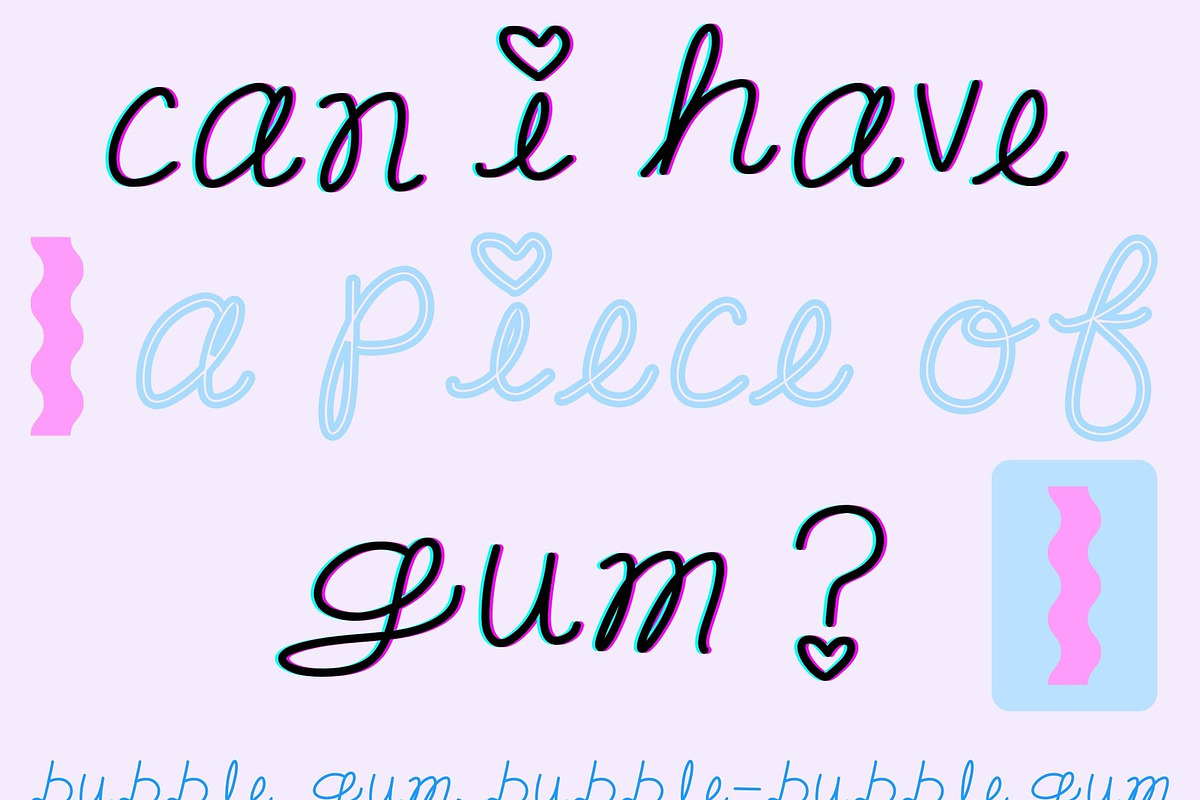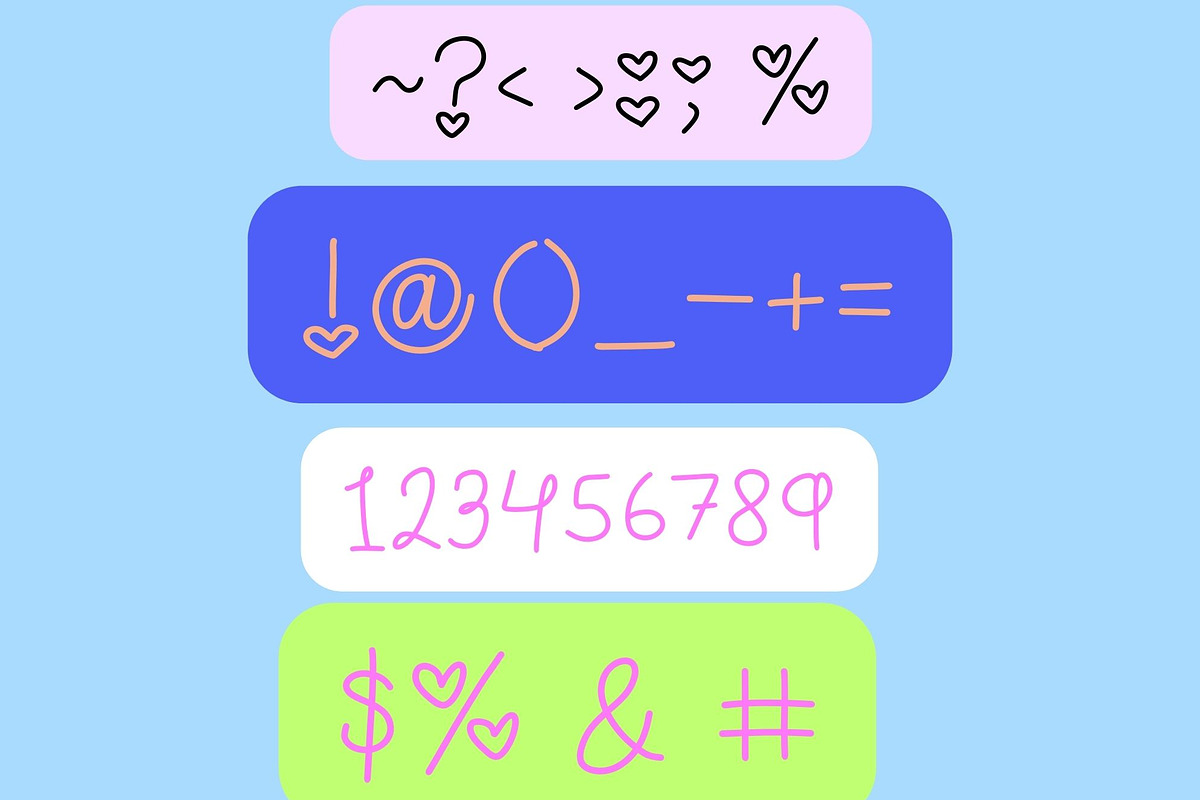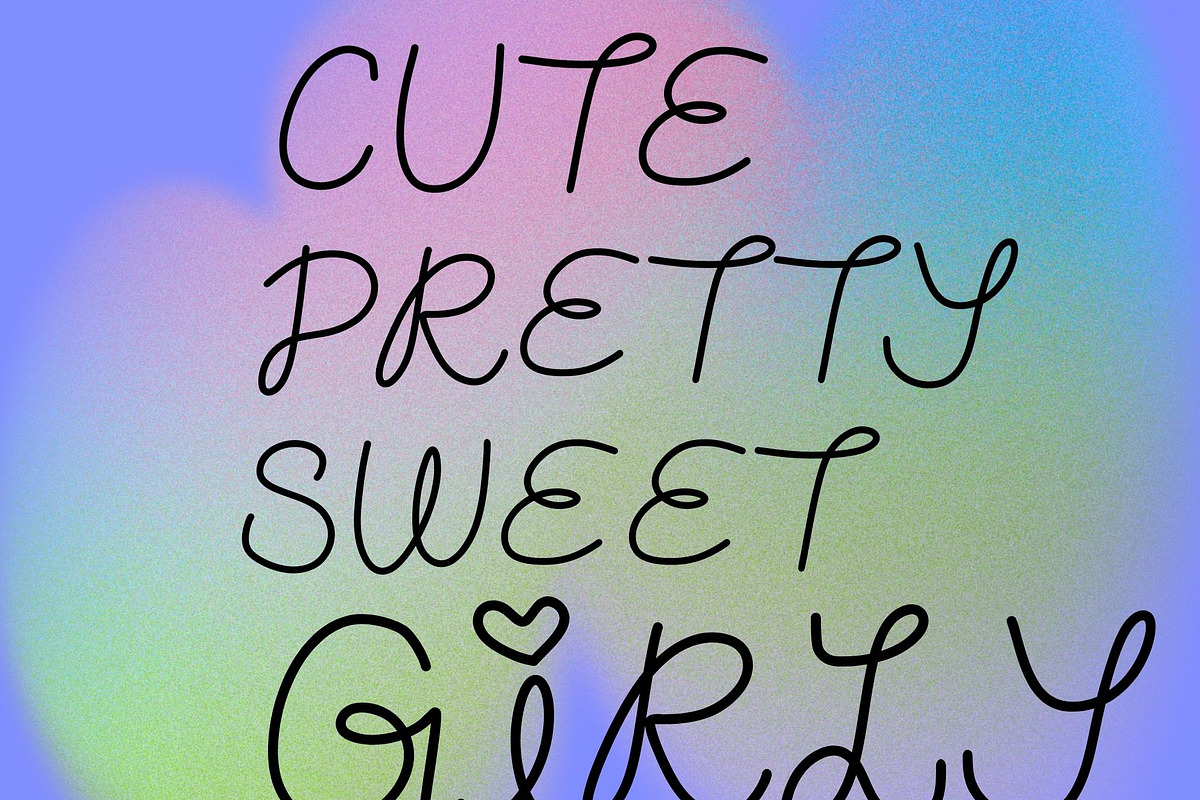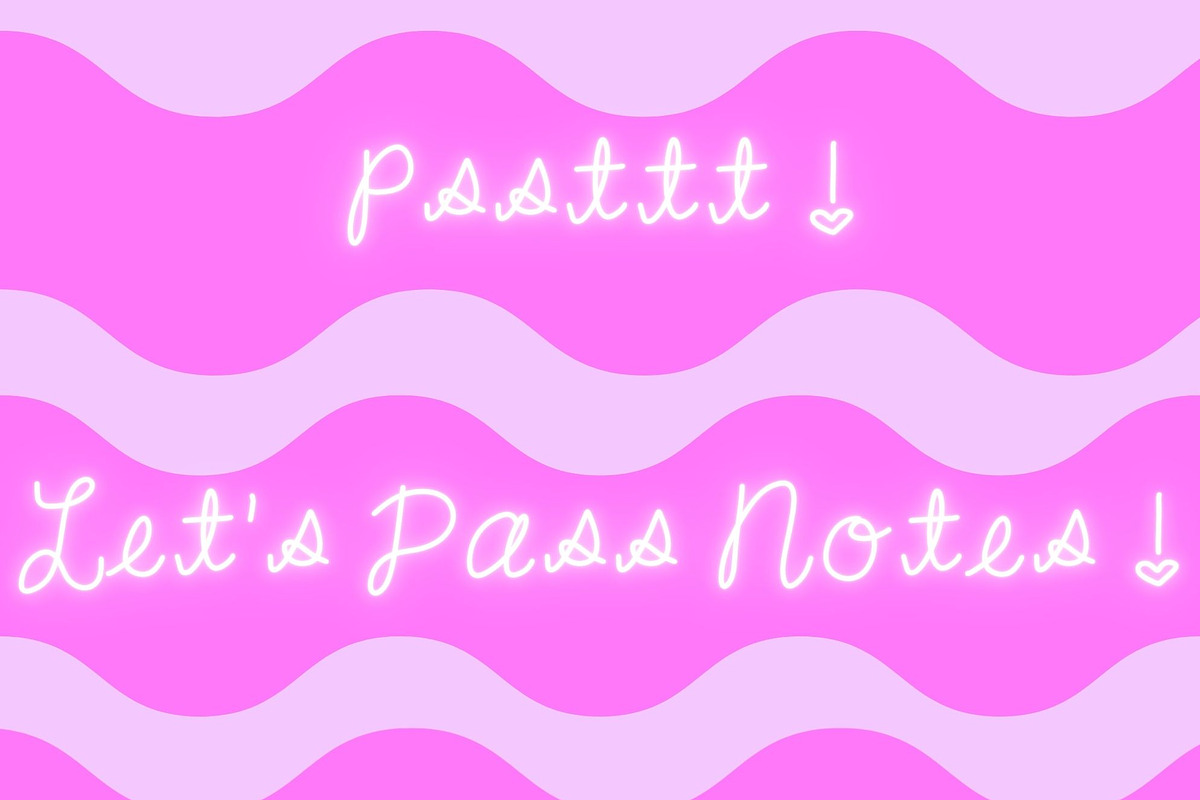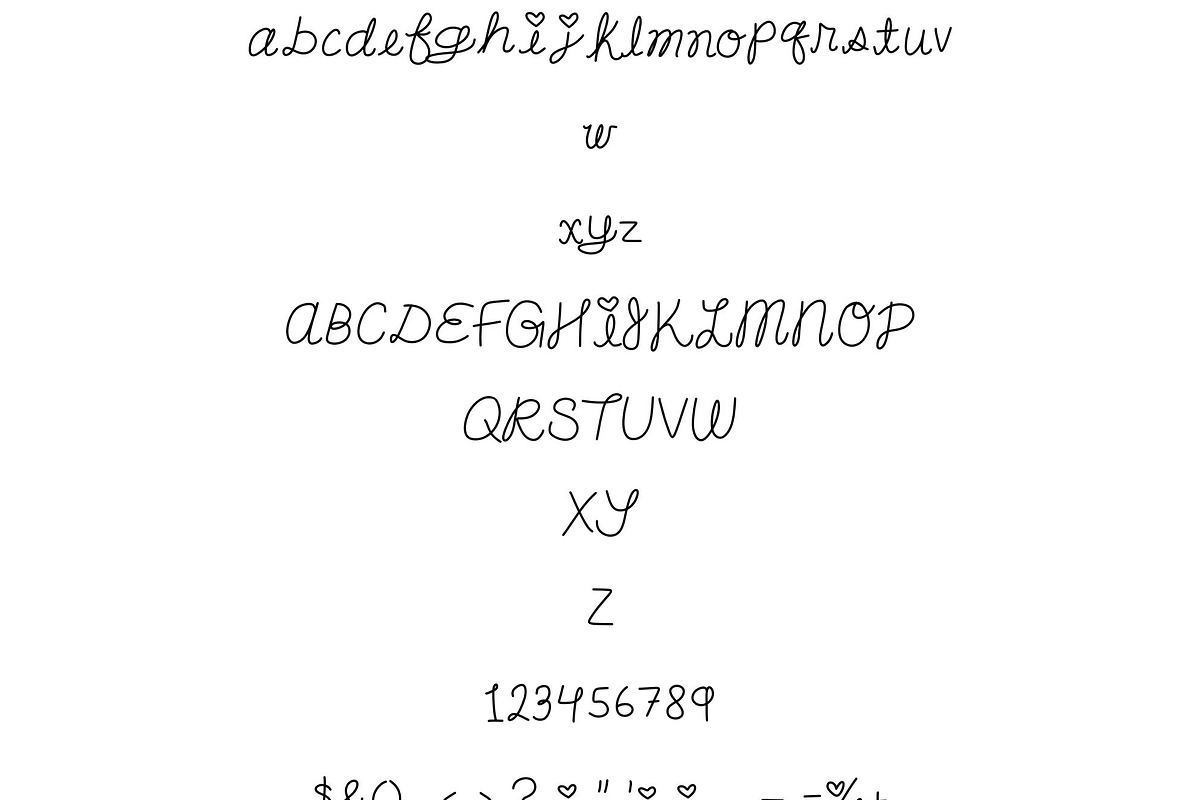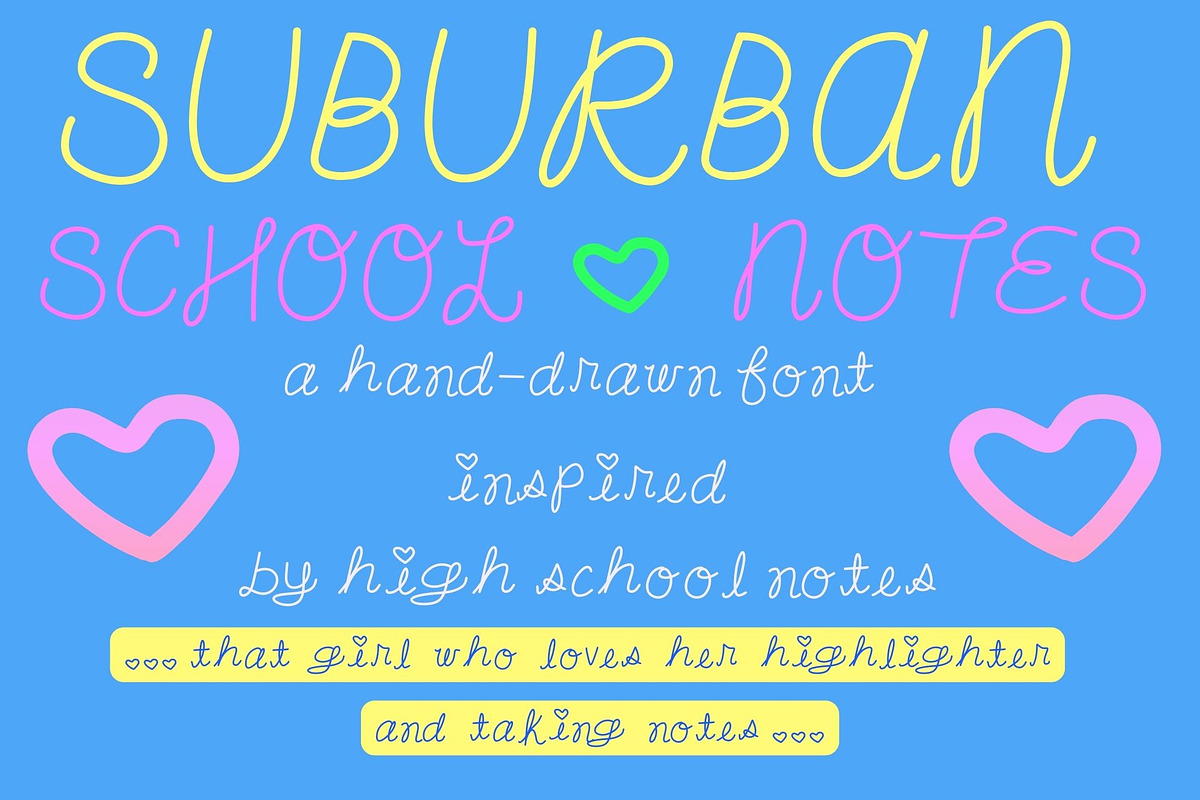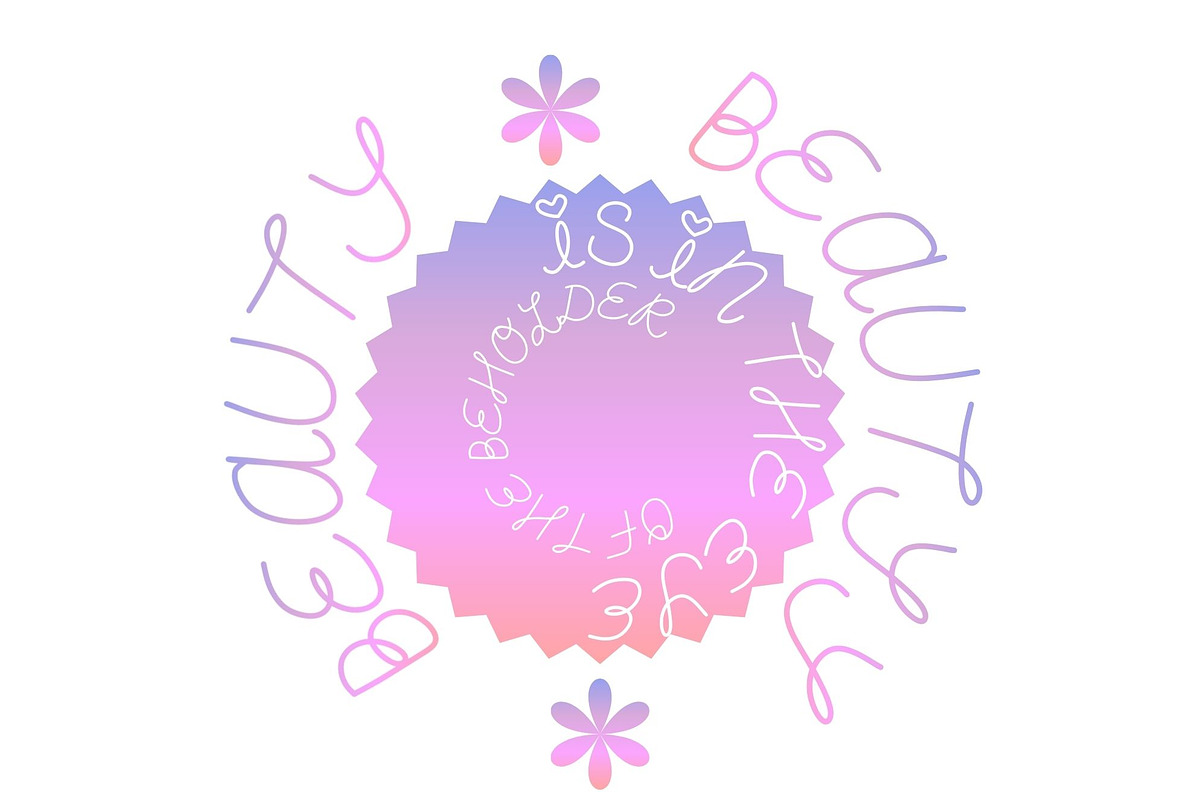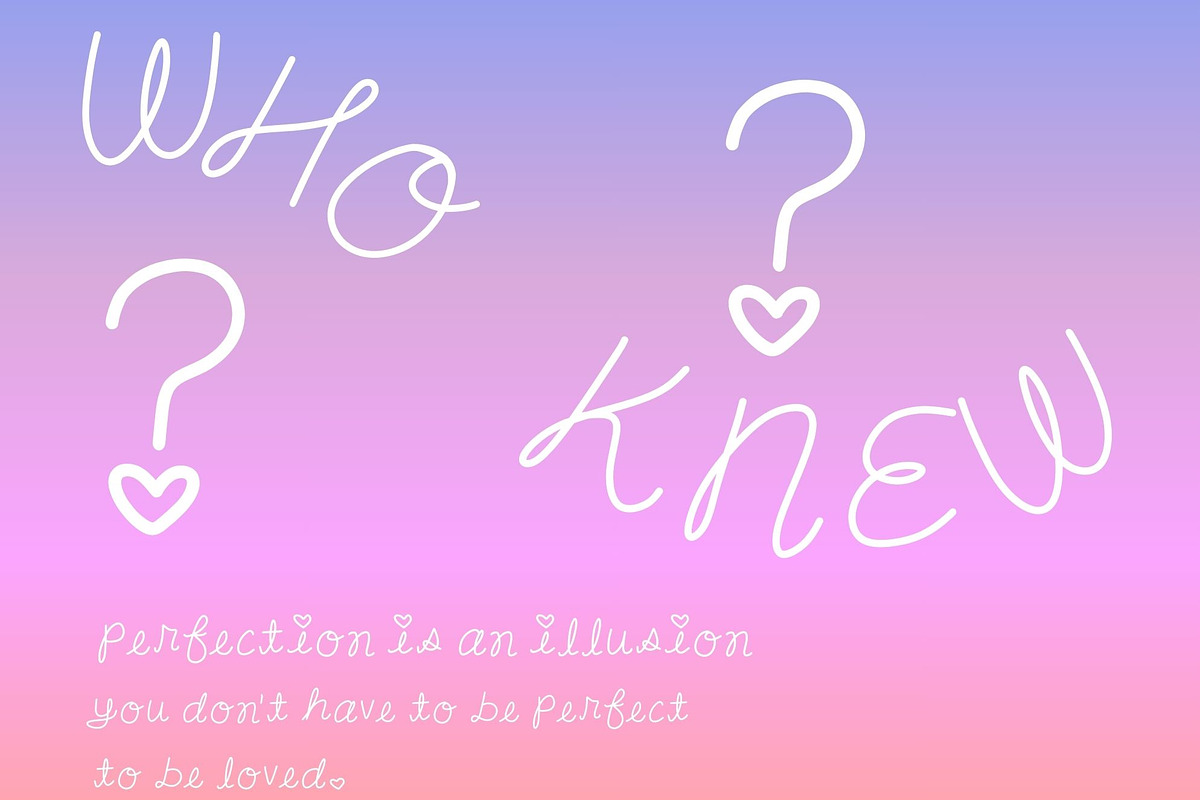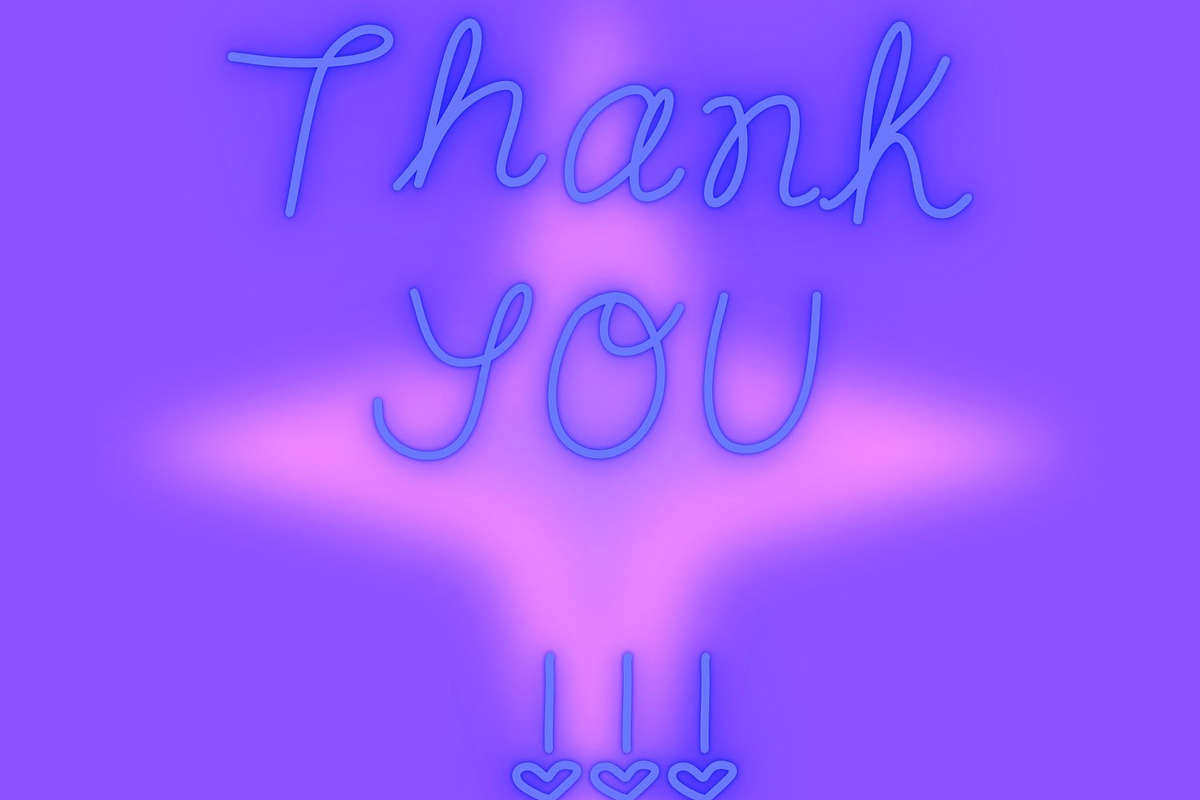
Girly Suburban School Notes
Suburban School Notes, girly Cursive . Remember those girls in high school who took perfect notes, with color coordinated highlighters, while popping that gum, while dotting their I's with hearts ? This font is inspired by them .... If you are a designer who loves a girly 90s aesthetic , then this font is for you; think Clueless vibes ... AS IF ! Have fun also using the symbols in this type-face which contains many cute hearts :) Perfect for stationary design, product design, or logo/website design for that girly business that likes pink. However, this font is what you make it, and it can be versatile as well.
full alphabet upper-case and lower-case
numbers and standard symbols